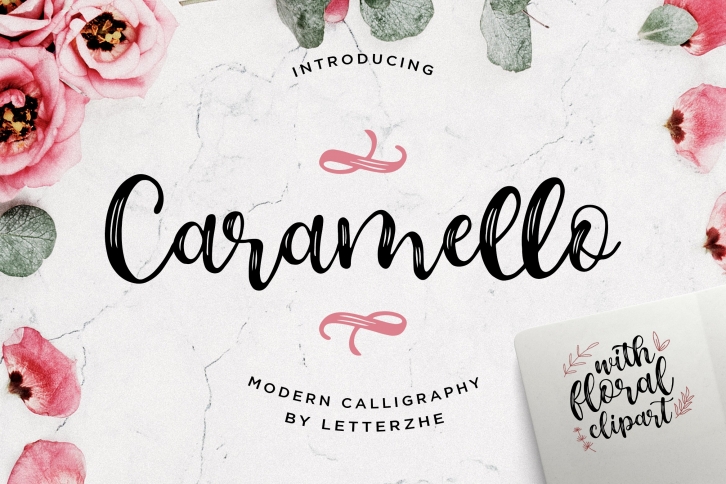
Caramello is a trendy and unique font with an authentic style. It was designed by Letterzhe and it's a great choice for creative people who need such a font. It was released on October 30, 2019 and the file size is 1.10 MB. Caramello will add an organic vibe to any design idea!